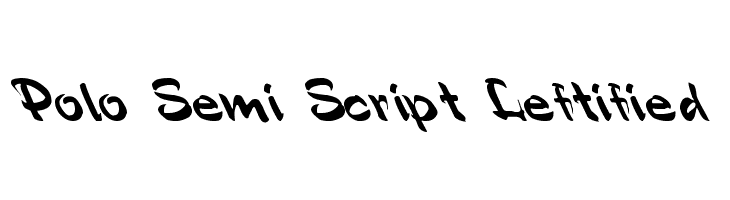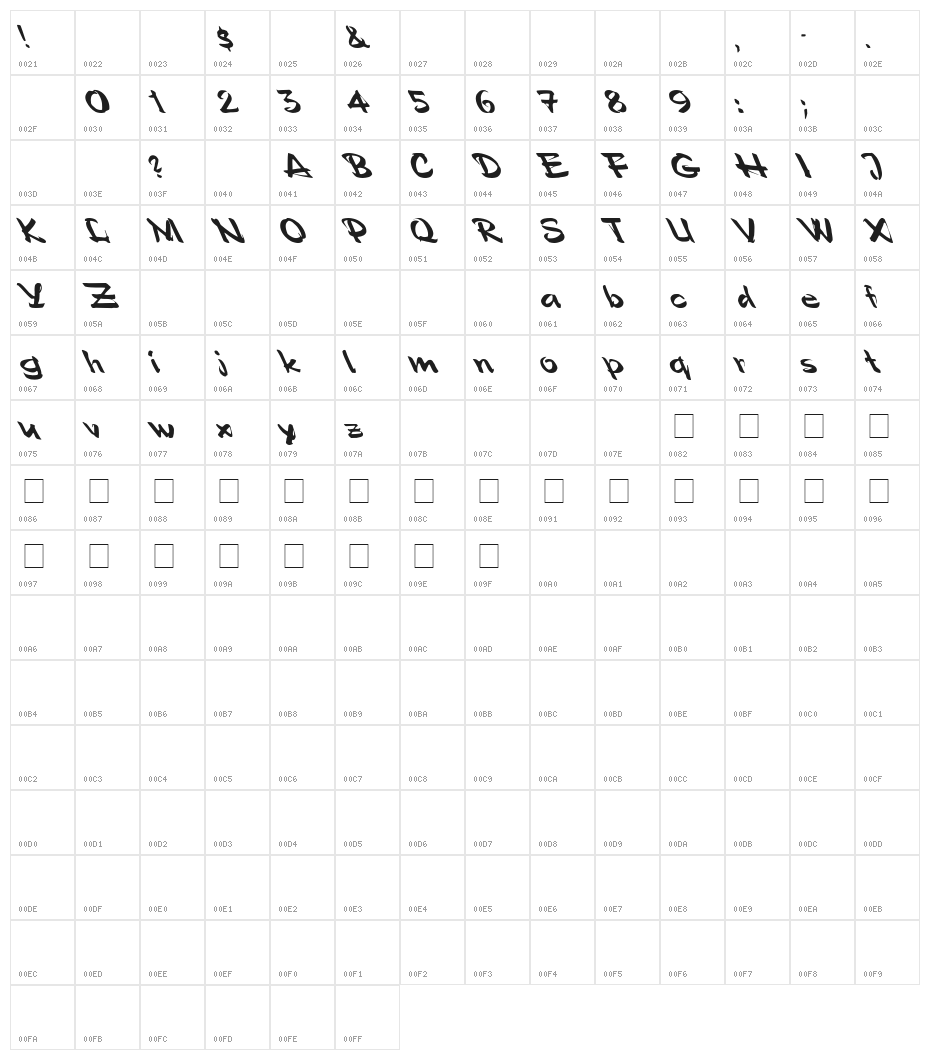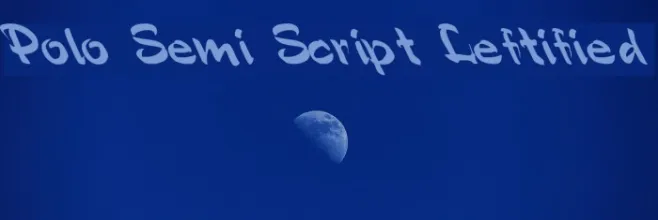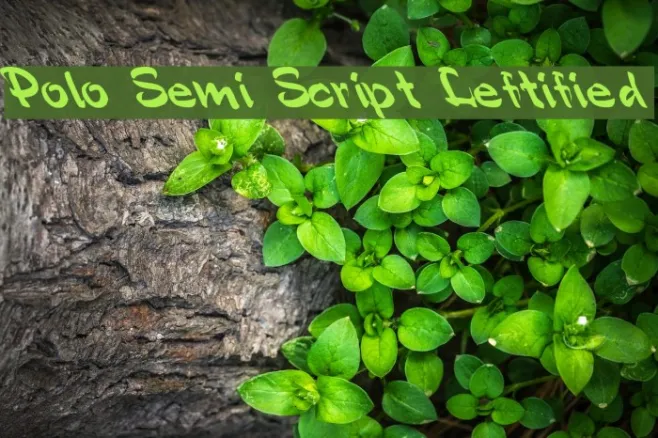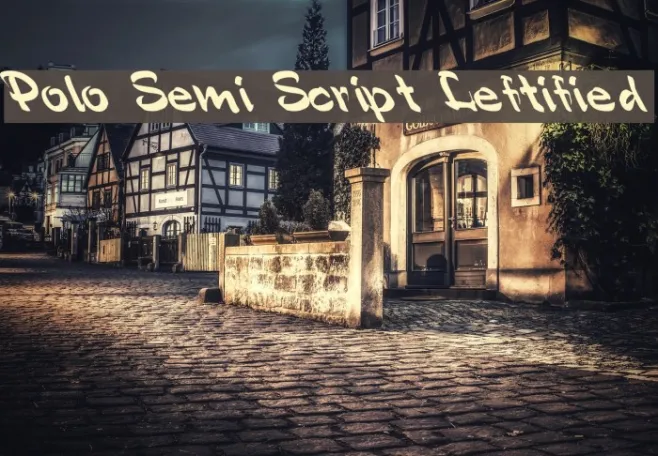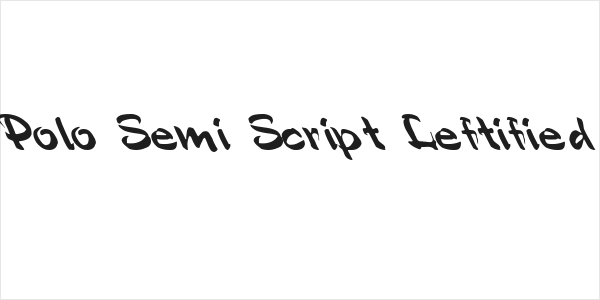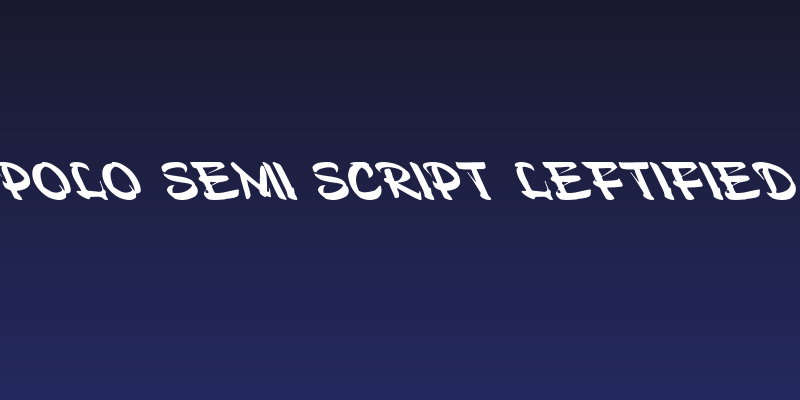
Polo Semi Script Leftified Font
Polo Semi Script Leftified Description
This font features a bold, dynamic script style with a playful and energetic appearance. The characters are slightly slanted, giving a sense of movement and fluidity. The strokes are thick and consistent, with a hand-drawn feel that adds a personal touch. The uppercase letters are bold and prominent, while the lowercase letters maintain a cohesive flow. Numbers and special characters follow the same energetic style, making them stand out. This font is ideal for projects that require a lively and informal tone.
Proposed ProjectsGreat for branding, posters, social media graphics, and any design needing a lively, informal touch.